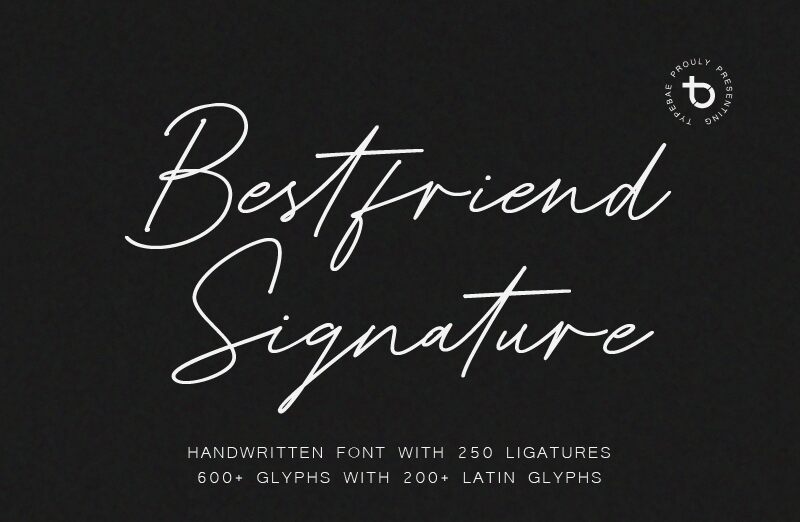
Bestfriend Signature, crafted by the talented Typebae Foundry, is a captivating handwritten font that exudes a sense of effortless elegance and genuine warmth. With its delicate, light strokes and natural flow, this signature-inspired style evokes a personal touch, inviting the viewer to feel the authenticity of each line. The whimsical yet refined aesthetic of Bestfriend Signature makes it a versatile choice, seamlessly transitioning from heartfelt wedding invitations to sophisticated branding applications.
This font's versatility shines through its ability to add a personal touch to a wide range of projects, from stationery and packaging to social media content and editorial design. Bestfriend Signature's delicate balance of formal and casual elements makes it a compelling option for those seeking to inject a touch of genuine charm and authenticity into their visual communications.
Bestfriend Signature